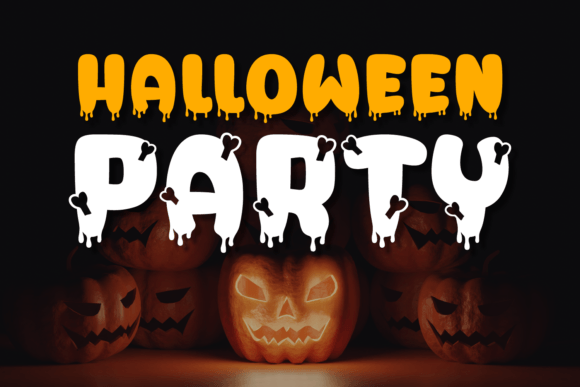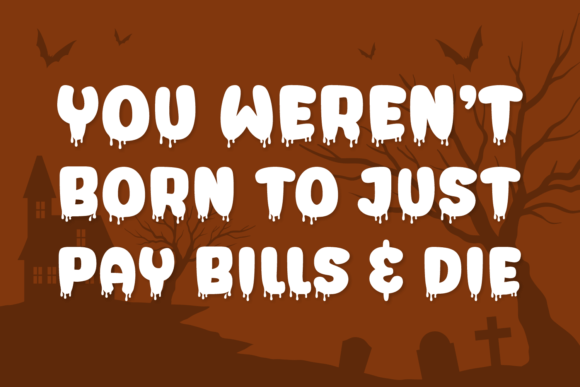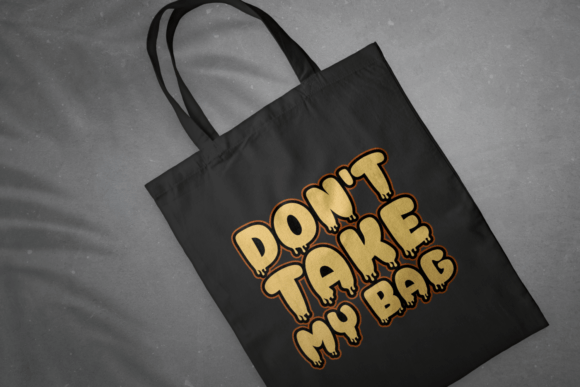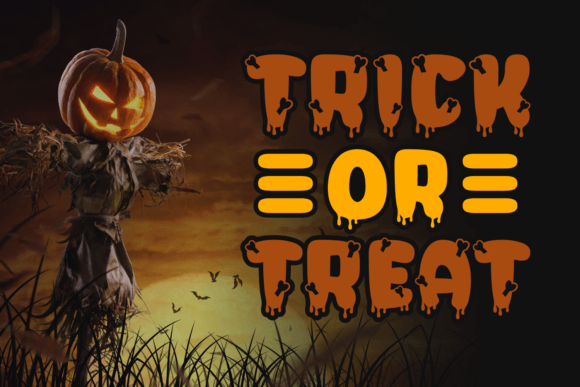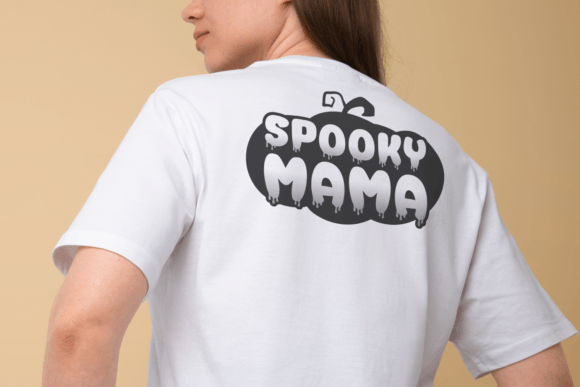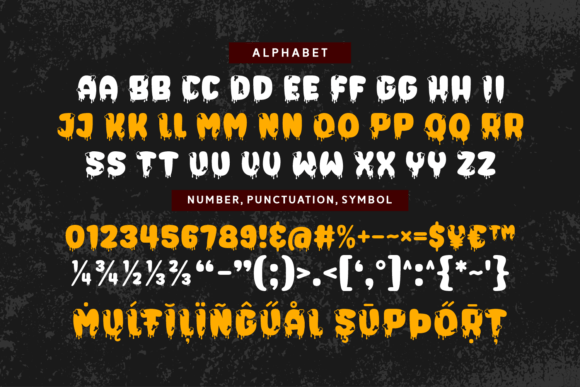
Introduction to Scary Bloods Font
As a designer, have you ever found yourself in a creative rut, searching for the perfect font to bring your spooky project to life? The Halloween season is just around the corner, and I’m sure many of you are itching to create something that screams “frightful fun.” That’s where the Scary Bloods Font comes in – a spine-chilling Halloween font that’s sure to send shivers down your spine.
With its bold and sinister design, this free download is a valuable resource for any designer looking to add an extra dose of creativity to their project. Whether you’re creating spooky invitations, haunted house signage, or eerie party decorations, the Scary Bloods Font is sure to deliver. And the best part? It’s available for free download, complete with a transparent background, making it easy to integrate into your design.
As a high-quality design resource, the Scary Bloods Font is perfect for anyone looking to take their creative project to the next level. So why wait? Unleash the terror of Halloween with this creepy and captivating font, and get ready to impress your clients with your spooky design skills.
Key Features of Scary Bloods Font
- Unique Gothic-inspired design perfect for creative projects and dark-themed designs.
- High-quality font with transparent background for seamless integration into your design resource.
- Perfect for creating a spooky atmosphere in your design, making it a unique characteristic of the Scary Bloods Font.
Honest Review: Scary Bloods Font
I recently came across the Scary Bloods Font while searching for a unique design resource for a creative project. I was excited to give it a try, and overall, I’m impressed with its potential.
- High-quality design that’s perfect for horror-themed projects or anything that needs a bold, edgy feel ✨
- Transparent background, making it easy to use in various design scenarios
However, I do have a few limitations to mention:
- ⚠️ Limited character set, which might be a problem for longer texts or projects that require a wide range of characters
- ⚠️ Not ideal for body text, as it’s a bit too bold and overwhelming for regular paragraphs
Overall, the Scary Bloods Font is a great addition to any designer’s toolkit, especially for creative projects that require a bold, attention-grabbing look. While it may have its limitations, I think it’s definitely worth considering for the right design scenario.
Scary Bloods Font
Tips for Getting the Most Out of Scary Bloods Font
To get the most out of the Scary Bloods Font, use it on a transparent background to create a spooky and eerie effect. You can also combine it with other fonts and design elements to create a unique and creative look.
The Scary Bloods Font is perfect for creative projects that require a spooky or eerie feel, such as horror movie posters, Halloween decorations, and spooky social media graphics.